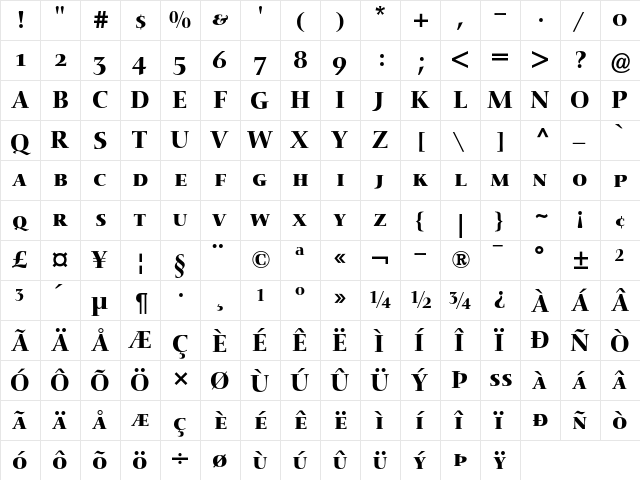
Nofret Medium SC
Design Context for Nofret Typeface
Nofret offers clean, dependable letterforms without strong stylistic allegiance, making it a practical choice for designers who need flexibility.
Pro Tip: Use Nofret in both headline and body roles to test its range before committing to a single application.